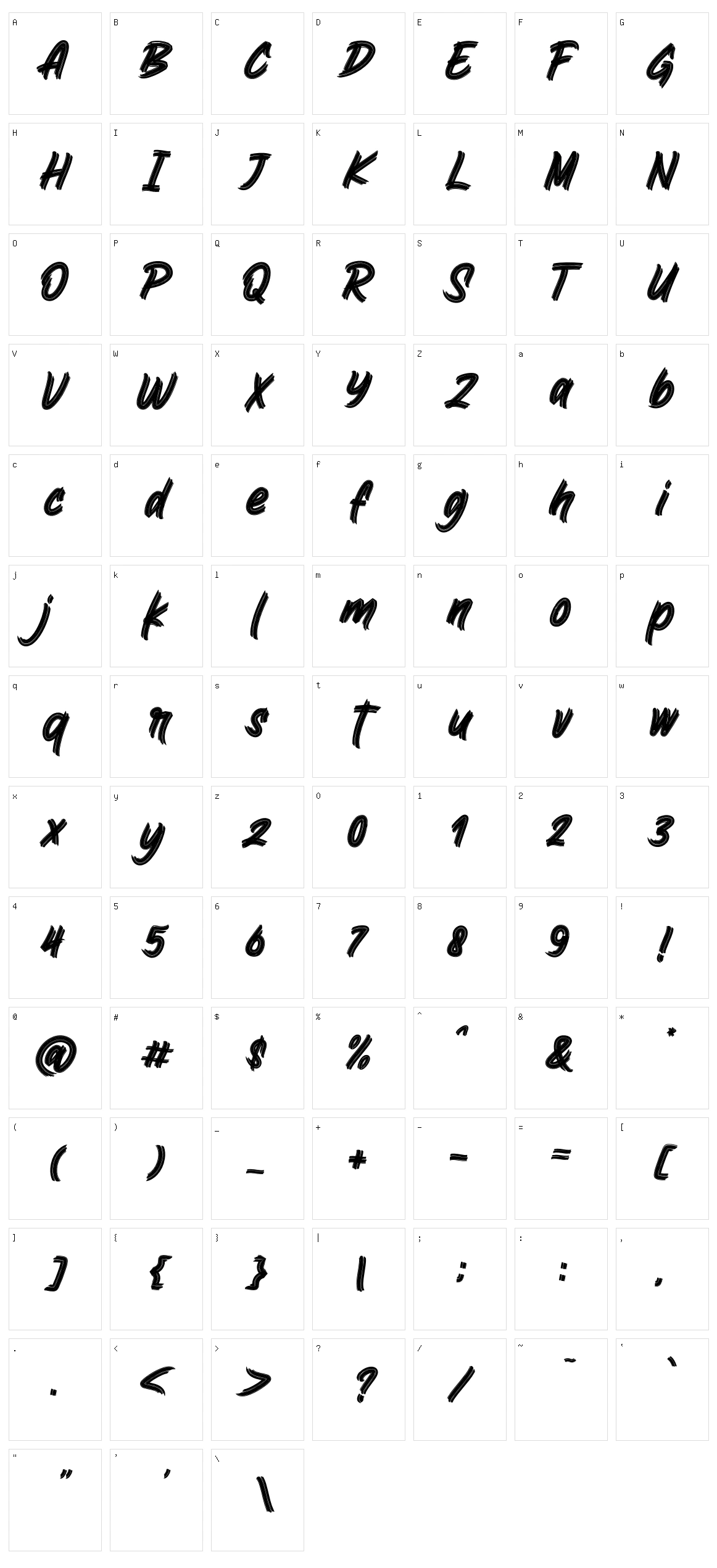
The free font Bingo Reky is carefully designed by StringLabs Creative Studio, showcasing a thoughtful balance of creativity and usability and falls under the Script font style. When you download the ZIP file, it contains only 1459.36 KB of font files, making it lightweight and quick to download. Please review the license details below to understand permitted usage and distribution rights. If license information is not available, we recommend using this font for personal projects only or contacting the author directly for commercial usage permissions.